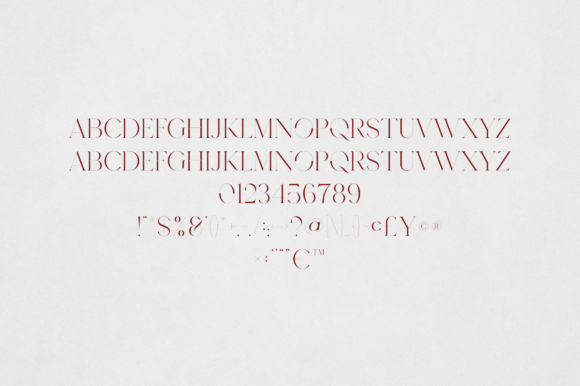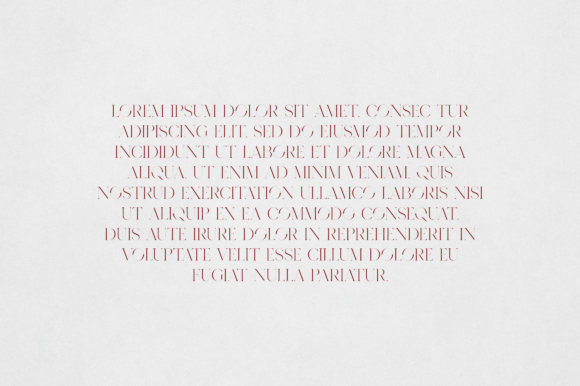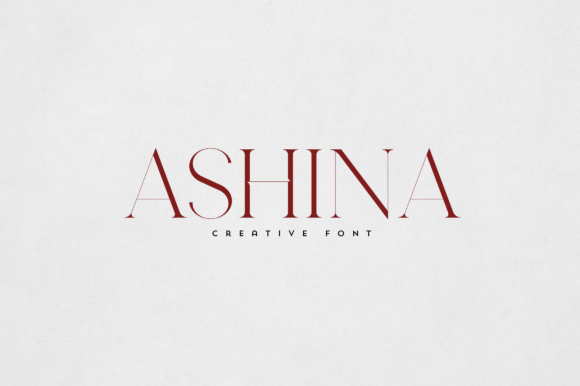
The Quest for the Perfect Font: Unveiling Ashina Font
Have you ever stared at a blank page, trying to bring your creative vision to life, only to be held back by the perfect font? That’s a struggle we’ve all faced at some point in our design journey. The right font can elevate a design from ordinary to extraordinary, and that’s exactly what the Ashina Font is designed to do.
Ashina Font is an elegant and versatile typeface that adds a touch of sophistication to any project. Whether you’re working on a branding project, designing home-ware, or creating product packaging, this font is sure to make your typography stand out. Its unique style and charm will captivate your audience and leave a lasting impression.
Ashina Font Key Features
- Font Family: Ashina is a multilingual font family, offering a range of styles and weights to cater to diverse language requirements.
- Unique Characteristics: Ashina features a unique blend of traditional and modern elements, providing a distinctive aesthetic that is both elegant and sophisticated.
- Language Support: Offers comprehensive support for multiple languages, including Latin, Cyrillic, and other non-Latin scripts, making it an ideal choice for global branding and design projects.
- Kerning and Glyphs: Includes advanced kerning and glyph sets, ensuring precise typographic control and a polished visual appearance.
Ashina Font Review
I recently had the chance to work with the Ashina Font, and overall, I’m quite impressed. Here are some of its standout features: ✨
- Unique aesthetic: The Ashina Font has a distinct, elegant feel to it that sets it apart from more generic fonts.
- High-quality design: The font is well-designed and polished, making it a great choice for professional projects.
- Flexibility: Ashina Font is available in a range of weights, making it easy to find the perfect fit for your project.
- Limited language support: The font may not support certain languages or character sets, which could be a problem for projects that require multilingual support.
- Size limitations: While the font is available in multiple weights, it may not be suitable for very large or very small text sizes.
Overall, I’d say the Ashina Font is a solid choice for designers who want a high-quality, unique font for their projects. With a little planning and consideration, it’s definitely worth incorporating into your workflow.
Tips for Getting the Most Out of Ashina Font
To get the most out of the Ashina font, try the following:
1. Use the font in combination with other Asian-inspired design elements.
2. Experiment with different font sizes and styles to create visual interest.
3. Use the font to create a consistent brand identity across your designs.
Common Use Cases for Ashina Font
The Ashina font is commonly used for:
1. Asian-inspired designs, such as Japanese or Chinese-themed posters.
2. Branding and marketing materials, such as business cards and logos.
3. Educational materials, such as language learning resources and cultural guides.